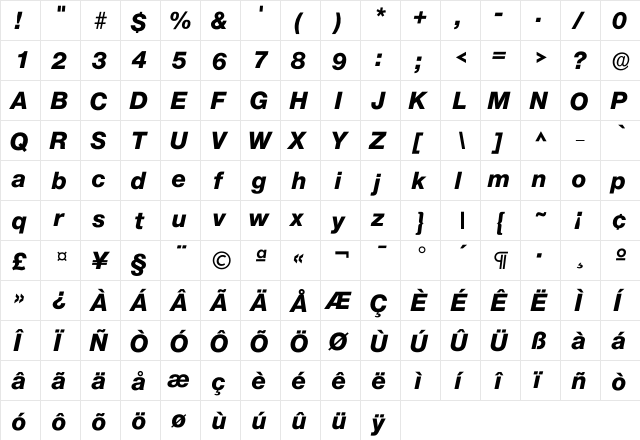
Iolnova ExtraBold
Design Context for Iolnova Typeface
Iolnova is a composed and adaptable typeface that performs quietly and consistently across a wide range of design contexts. Its bold stroke weight gives it real presence on the page.